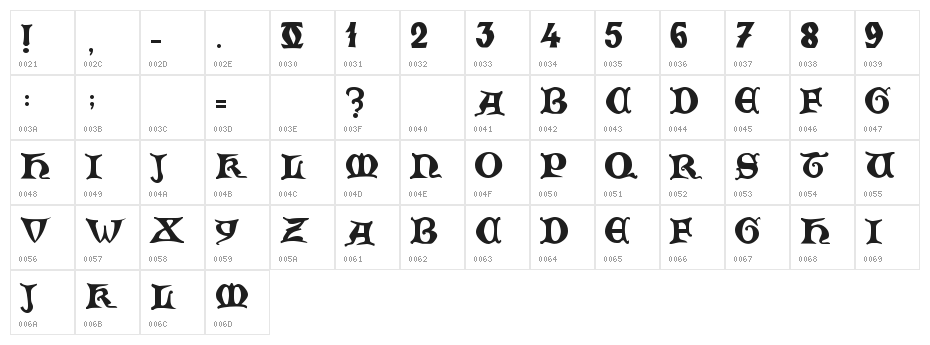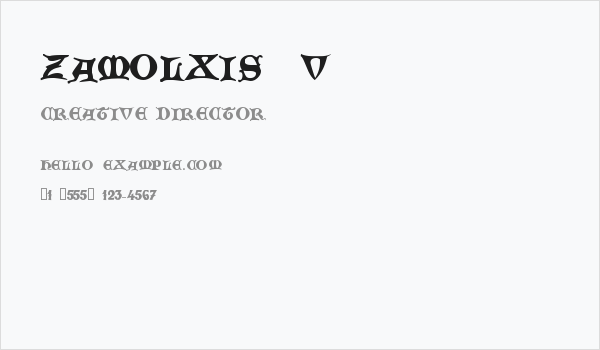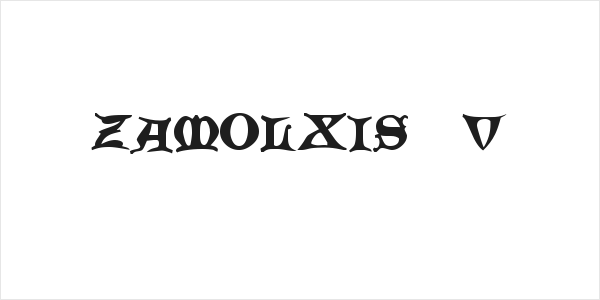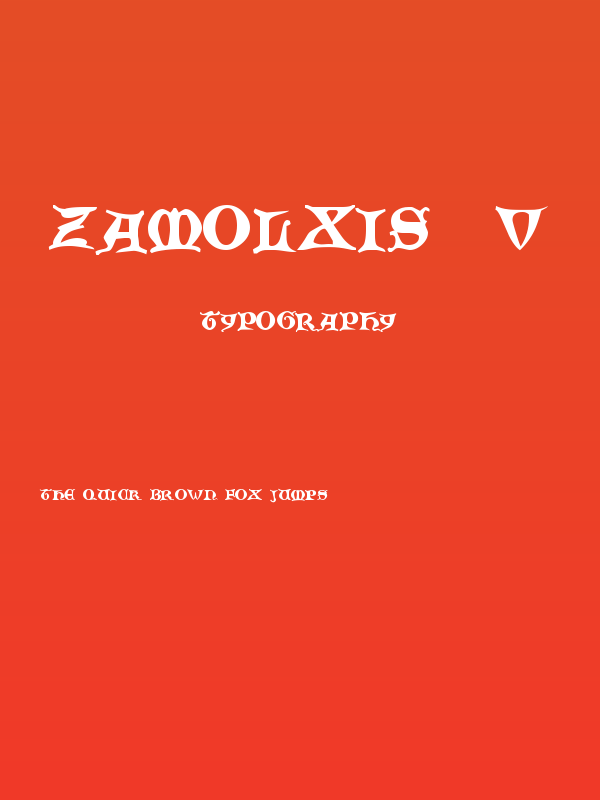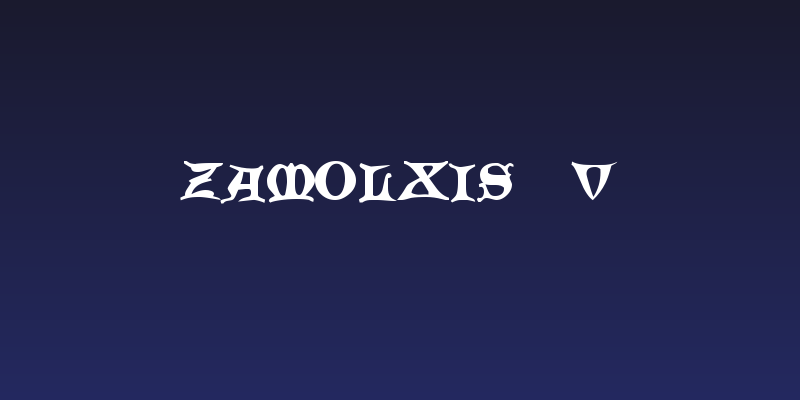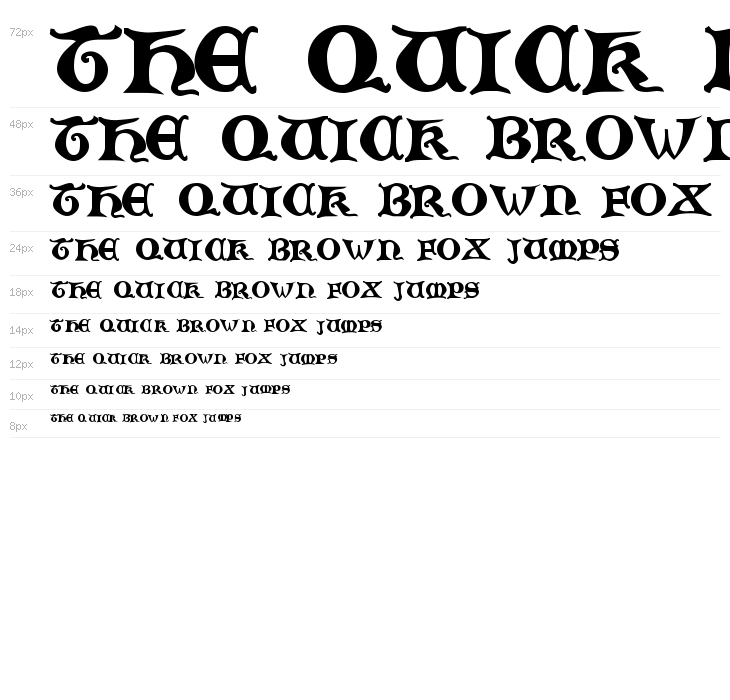
Zamolxis V Font
Zamolxis V Description
This font features a bold and dramatic style with intricate, sharp edges and a gothic influence. The uppercase letters are ornate, with pointed serifs and a medieval flair, while the lowercase letters maintain the same decorative elements. The numbers are equally stylized, with a consistent weight and boldness that matches the letters. Special characters are designed to complement the overall aesthetic, adding to the font's cohesive look. This font's unique style makes it ideal for projects that require a strong, historical, or fantasy-themed appearance.
| Proposed Projects | Ideal for fantasy book covers, historical event posters, themed invitations, or video game graphics. |